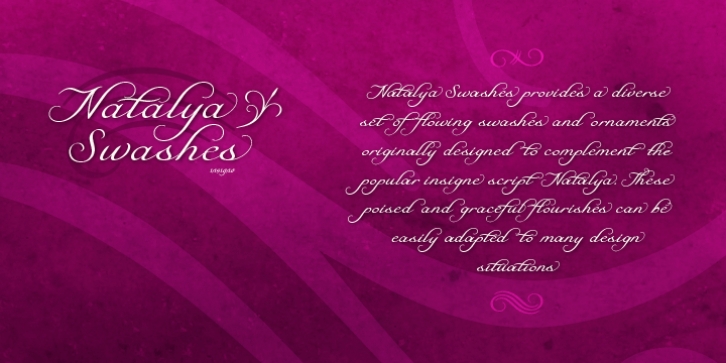
Natalya Swashes provides a diverse set of flowing swashes and ornaments originally designed to complement the popular insigne script Natalya.
The basis point for Natalya’s ornate swirls is the golden ratio, and this makes for especially harmonious swashes with timeless appeal. These poised and graceful flourishes can be easily adapted to many design situations, even in situations that don't call for Natalya Swashes' script companion. Natalya swashes can be resized and rotated easily without any loss of quality and converted to outlines and modified.
Combine them to form unique compositions or insert them into your copy to create interest.